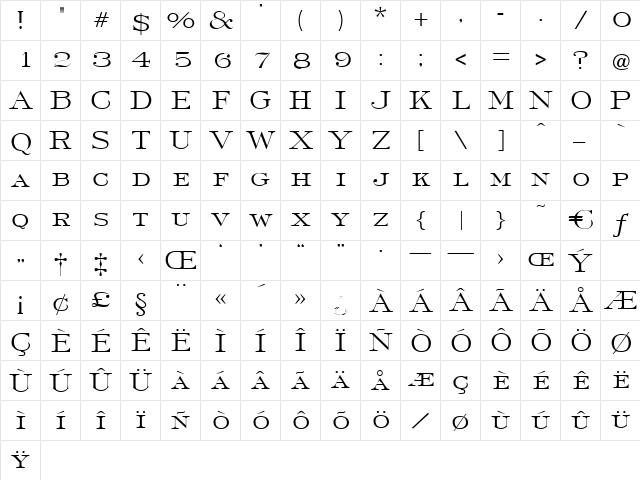
RobertoLight Regular
Design Context for RobertoLight Typeface
RobertoLight offers clean, dependable letterforms without strong stylistic allegiance, making it a practical choice for designers who need flexibility. The delicate stroke weight brings airiness and refinement to layouts.